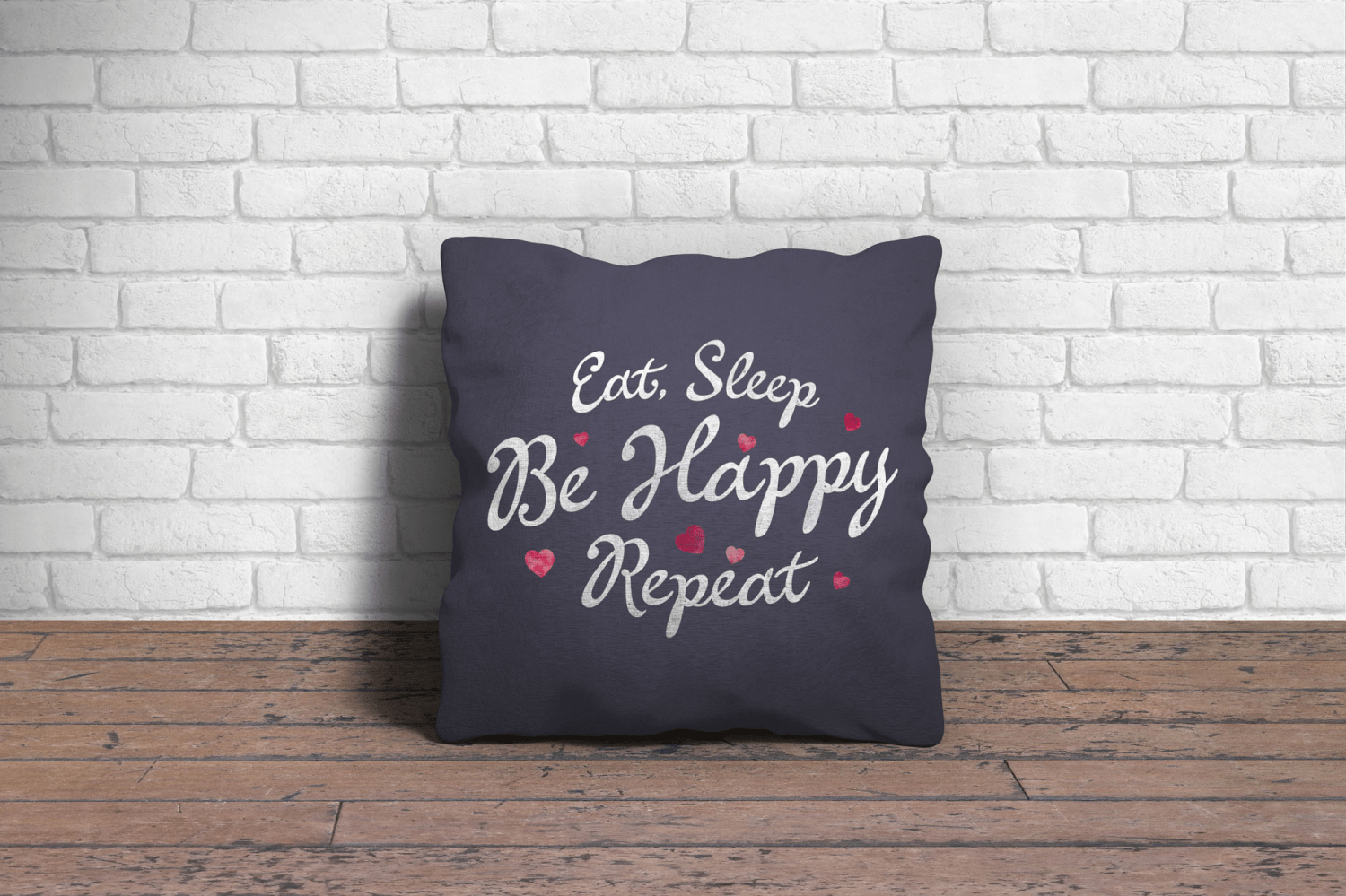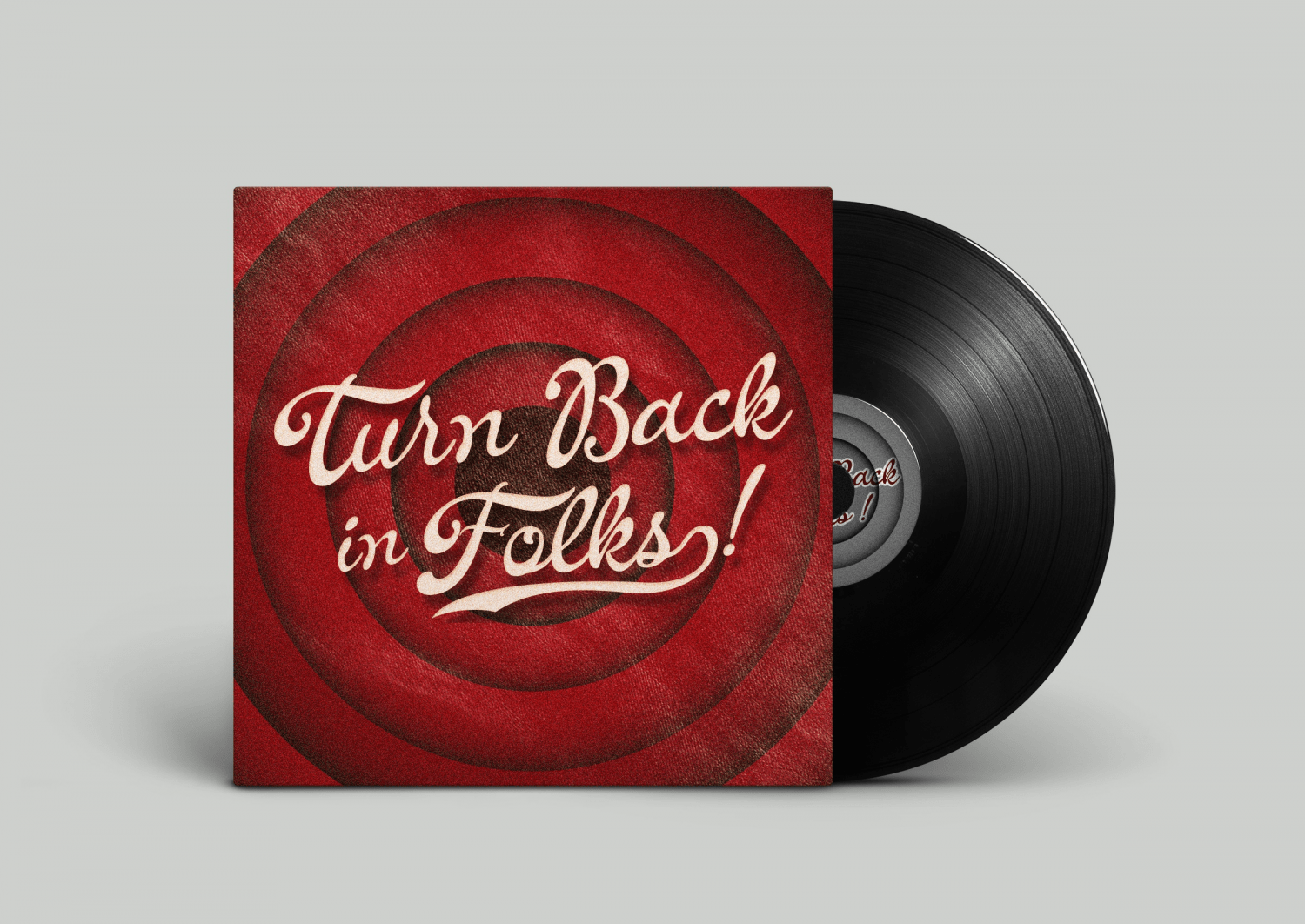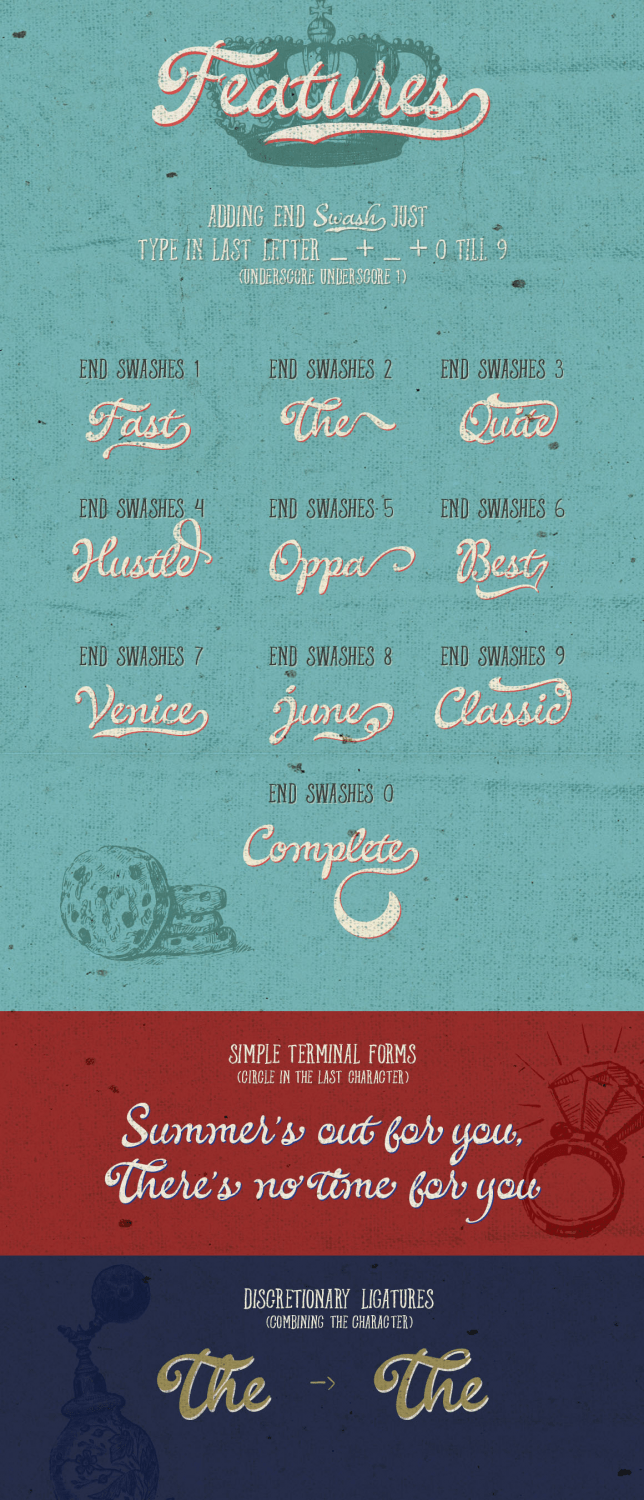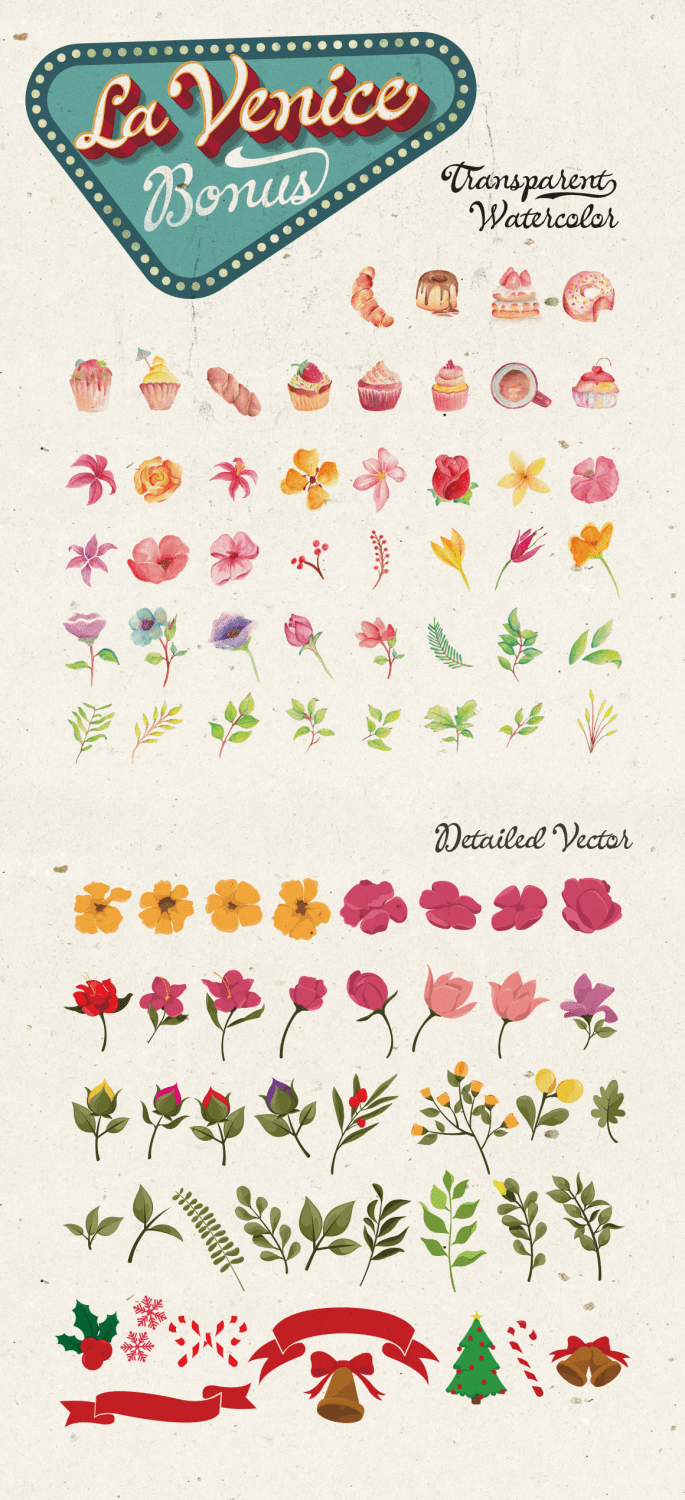
About La Venice
Based on long time research on a vintage and modern script font, I try to create the combined vintage and modern style into La Venice Script. Some of letters deliberately aren\’t connected to create the impression of freedom like a lettering artist. As…